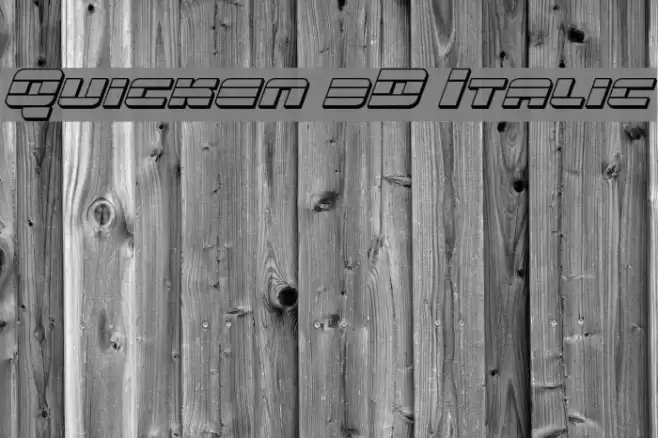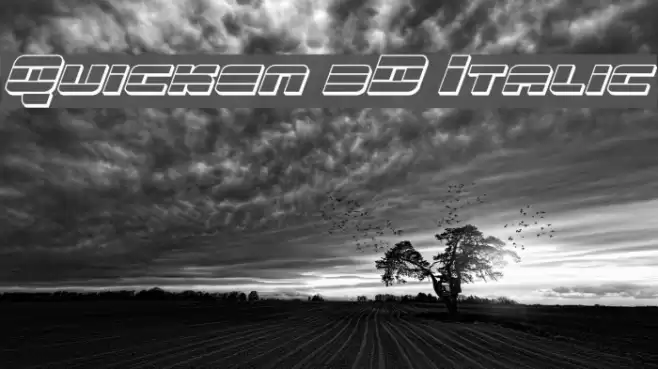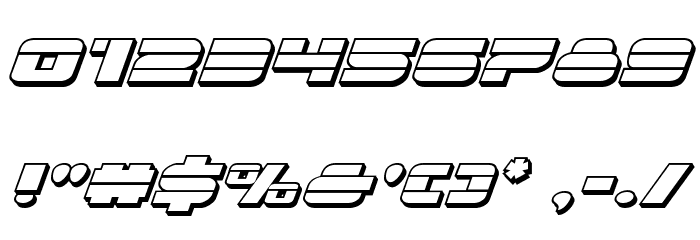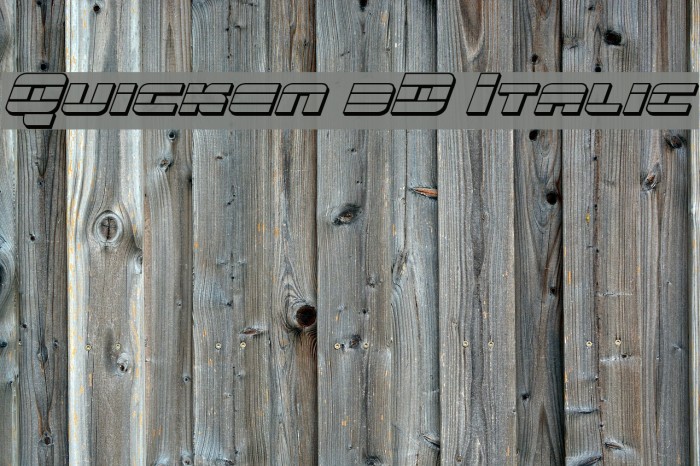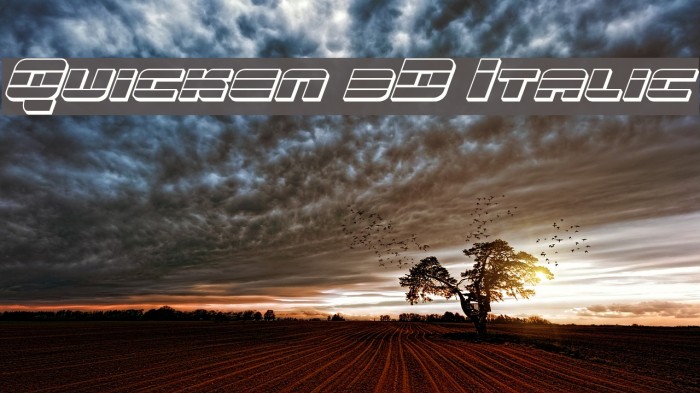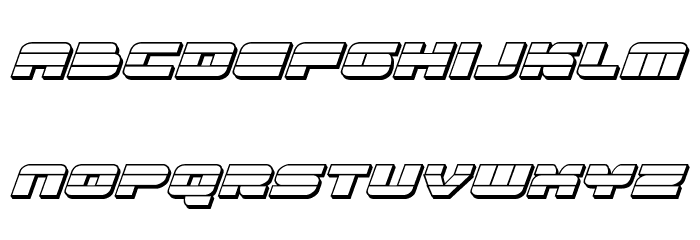
Quicken 3D Italic Font
Quicken 3D Italic Description
This font features a bold, three-dimensional design with a futuristic and dynamic appearance. The characters are outlined with a shadow effect that gives them a sense of depth and movement. The uppercase letters are angular and geometric, while the lowercase letters maintain a consistent style, enhancing the overall uniformity. Numbers and special characters follow the same design principles, ensuring a cohesive look across all elements. The italic slant adds to the font's energetic feel, making it suitable for projects that require a modern and eye-catching typeface.
A bold, 3D italic font with a futuristic and dynamic style from Uncategorized fonts.
- Proposed Projects: Ideal for video game titles, tech branding, futuristic posters, and digital media.